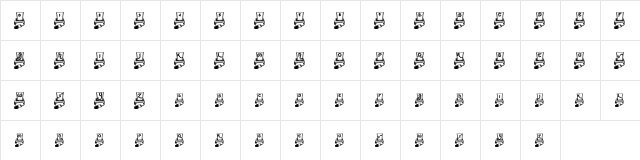
pf_printer Regular
Design Context for pf_printer Typeface
pf_printer is a composed and adaptable typeface that performs quietly and consistently across a wide range of design contexts.